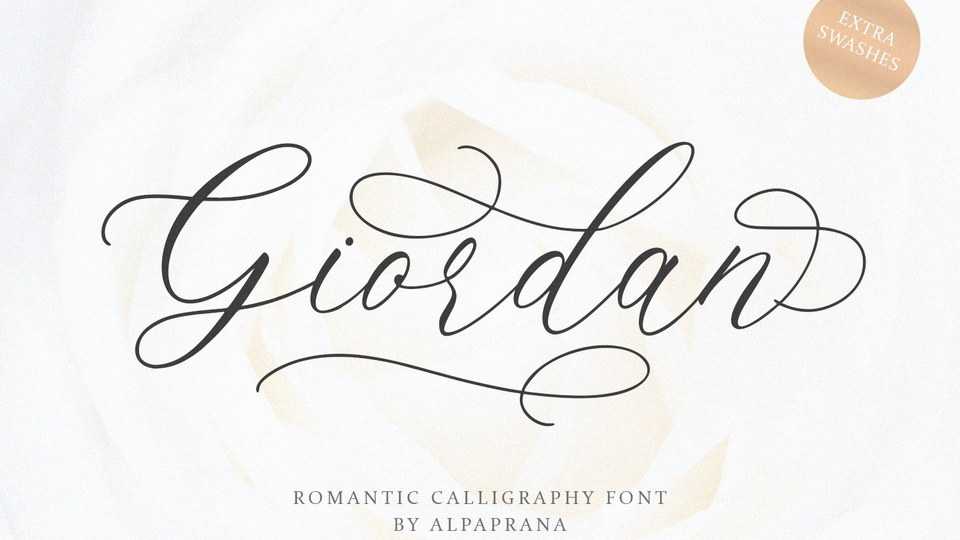
Download Giordan font, a stunning romantic calligraphy script with and authentic and casual feels. Giordan will be perfectly used for branding, logo, magazine, wedding, photography, special events and other design project.
Designer: Alpaprana Studio